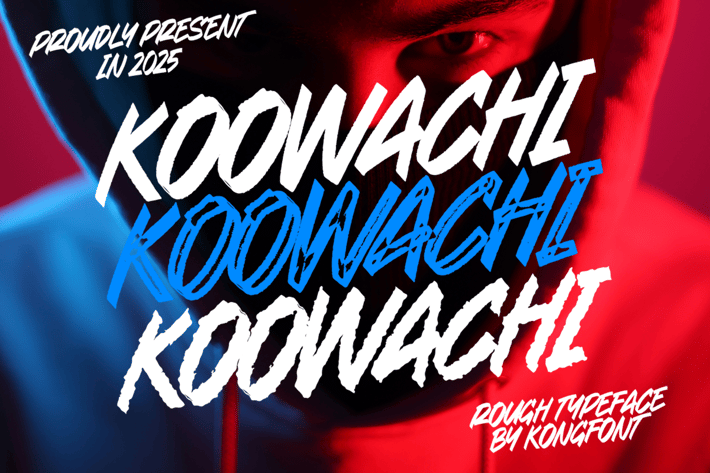
Koowachi - A Rough Typeface
Introducing Koowachi, a rugged and dynamic typeface that adds raw character to your designs. With its textured, rough aesthetic, this font is perfect for projects that demand a bold, handcrafted feel.
Whether you're working on branding, poster designs, packaging, or anything that needs a gritty, eye catching edge, Koowachi brings a unique and powerful presence to your creations. Its irregular texture and bold strokes give your designs a rebellious, authentic charm.
With a full character set and multilingual support, Koowachi is versatile and ready to tackle any creative challenge.
Introducing Koowachi, a rugged and dynamic typeface that adds raw character to your designs. With its textured, rough aesthetic, this font is perfect for projects that demand a bold, handcrafted feel.
Whether you're working on branding, poster designs, packaging, or anything that needs a gritty, eye catching edge, Koowachi brings a unique and powerful presence to your creations. Its irregular texture and bold strokes give your designs a rebellious, authentic charm.
With a full character set and multilingual support, Koowachi is versatile and ready to tackle any creative challenge.